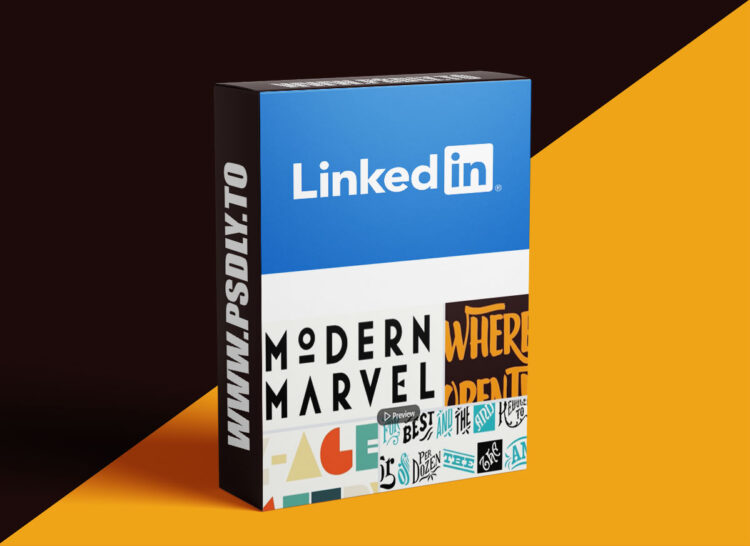
Typography: Advanced Font Techniques
In this course, Nigel French takes you on a journey to explore the nuances and finesse of typography. Learn how—and more crucially, why and when—to use discretionary ligatures, alternate characters, stylistic sets, ornaments, swash characters, titling alternates, and many other typographic delicacies. By the end of the course, you’ll know where to find and how to use the full range of OpenType options to add flair and personality to your work. You’ll also understand the strengths and limitations of variable fonts and color fonts.